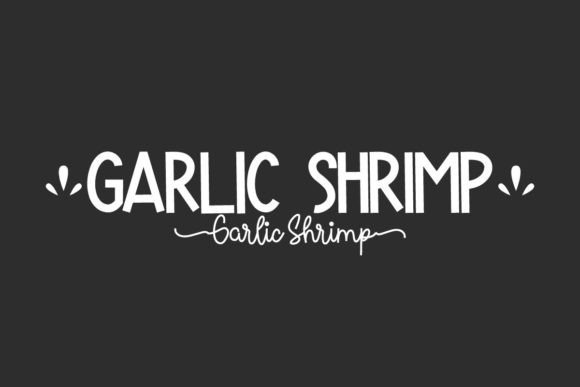
Introducing Garlic Shrimp Duo Font - the ultimate choice for those seeking the best font for tattoo script! Created by vintype, this font family is a captivating combination of a playful sans serif and a mesmerizing monoline handwriting script. With its unique charm and versatility, Garlic Shrimp is here to revolutionize your designs and make them truly unforgettable.
When it comes to making a lasting impression, Garlic Shrimp Duo Font is your secret weapon. Its friendly and cheerful nature adds a touch of warmth to any project, instantly capturing the hearts of your audience. Whether you're creating a logo, a poster, or a website, this font duo will make your design stand out from the crowd, elevating it to new heights of creativity.
Food and beverage industry? Check. Kid-friendly items? Absolutely. Publishing? Of course! Garlic Shrimp Duo Font effortlessly adapts to a wide range of industries, making it the perfect choice for restaurants, school crafts, toy companies, and so much more. Its adaptability knows no bounds, allowing you to explore endless possibilities and create stunning visuals that leave a lasting impact.
But what sets Garlic Shrimp apart from other fonts? Its attention to detail and impeccable craftsmanship. Each letter is meticulously crafted to ensure a seamless connection between characters, creating a fluid and natural flow. This attention to detail not only enhances legibility but also adds a touch of elegance to your designs, making them visually captivating.
Embrace the power of emotional connection with Garlic Shrimp Duo Font. Its eye-catching appeal and versatile nature will evoke a range of emotions in your audience, from excitement to nostalgia, drawing them closer to your brand. With its captivating script, you can effortlessly infuse your designs with a sense of authenticity and personality, leaving a lasting impression on anyone who lays eyes on your work.
In conclusion, Garlic Shrimp Duo Font is more than just a font - it's a creative companion that brings your imagination to life. Unlock its potential and let your designs flourish with its friendly and cheerful accent. Stand out from the ordinary and embrace the extraordinary with Garlic Shrimp Duo Font - the best font for tattoo script that will take your creativity to new heights.